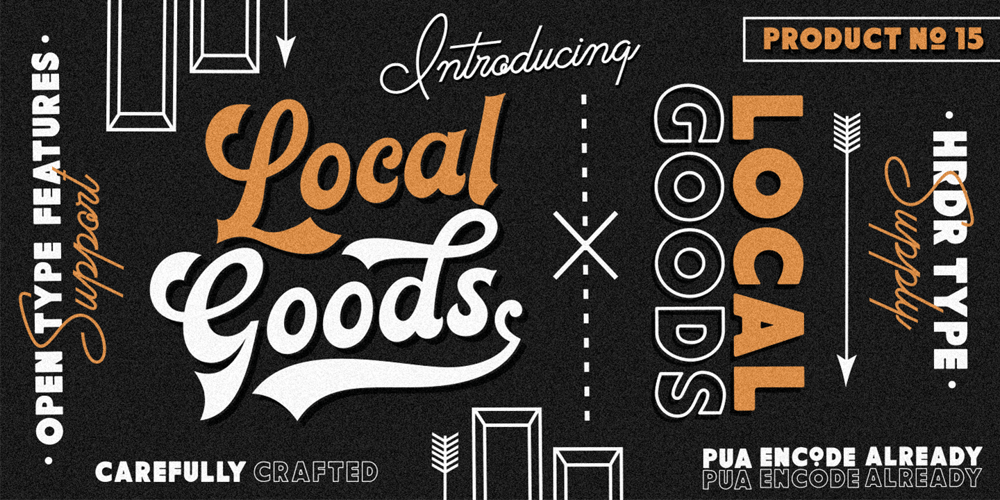
Local Goods Font Family was designed by Dede Mulyadi and published by HRDR. Local Goods contains 3 styles and family package options. Local Goods is a font combinations with a three different style, these font can include a modern vintage look and elegant look.Local Goods It is perfect for product logo, signage, branding projects, headlines, posters, packaging, clothing brand logos, Vintage design and much more.